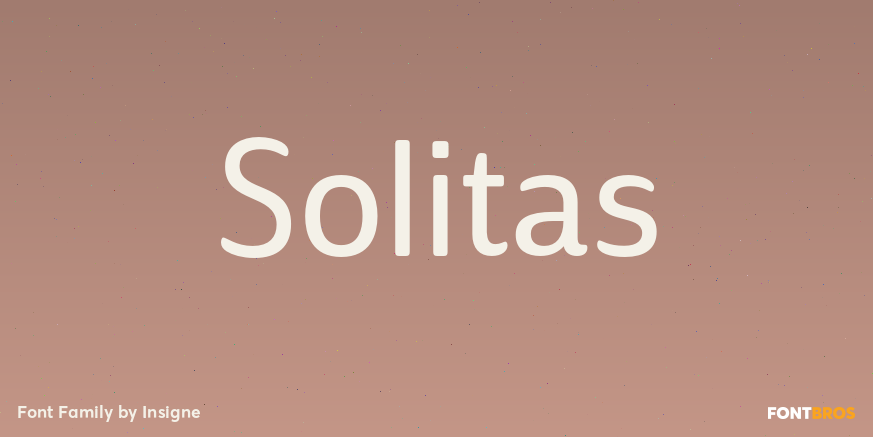
Solitas
About Solitas
You request perfection–that ideal equilibrium of compact dimensions and geometric underpinnings that leaves you with pure, clean lines of a highly legible sans. We give you Solitas, a 7-weight sans-serif from Jeremy Dooley. Made of 42 fonts, from the…